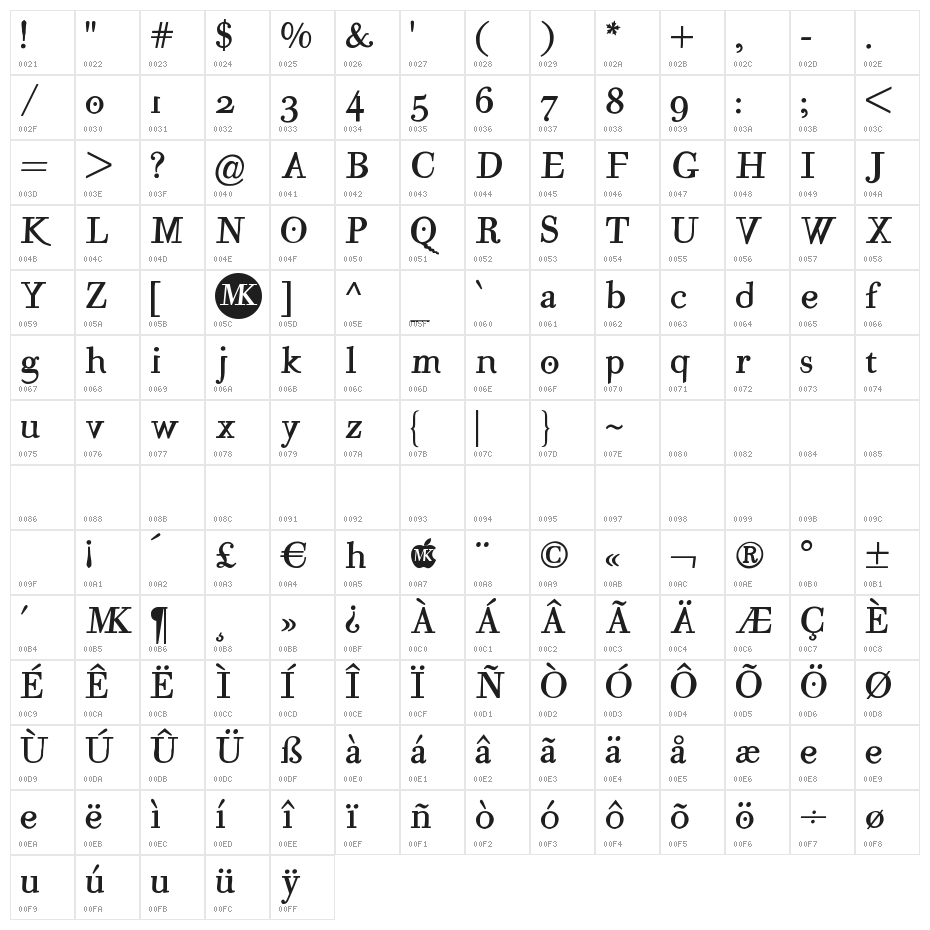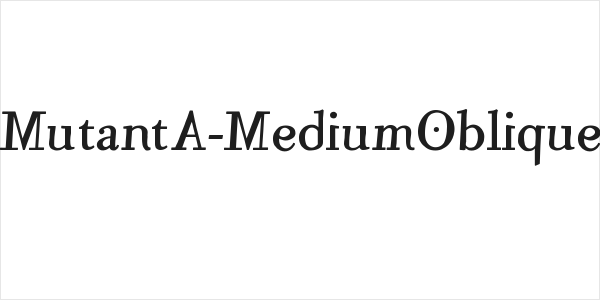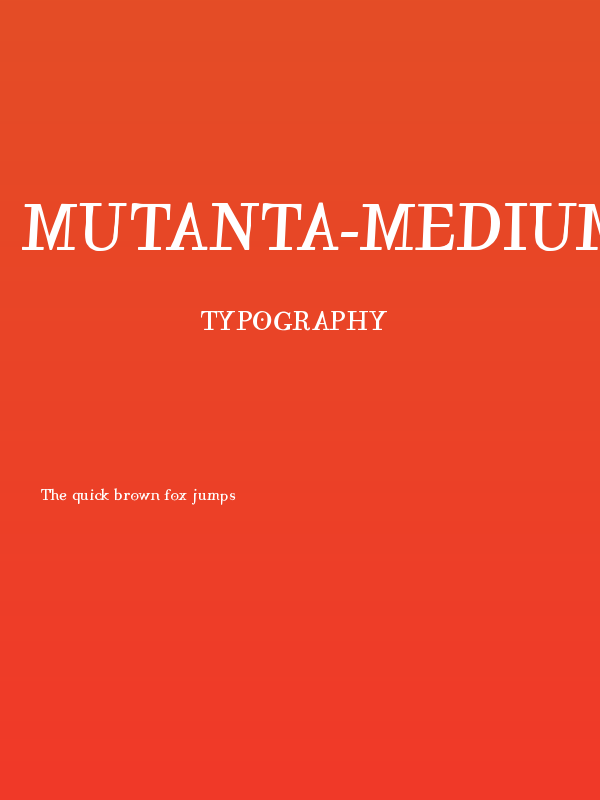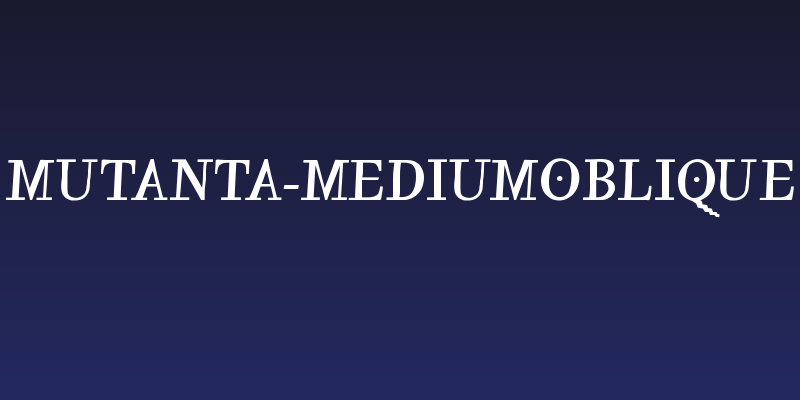
MutantA-MediumOblique Font
MutantA-MediumOblique Description
This font features a unique blend of classic serif elements with a modern twist, characterized by its medium weight and oblique style. The uppercase letters are bold and commanding, while the lowercase letters maintain a playful yet sophisticated appearance. The numerals are distinct and easy to read, making them suitable for various applications. Special characters are well-defined, adding versatility to the font's usage. The overall design is both elegant and functional, with a slight slant that adds dynamism to the text.
| Proposed Projects | Ideal for branding, editorial design, and advertising materials where a touch of sophistication is desired. |